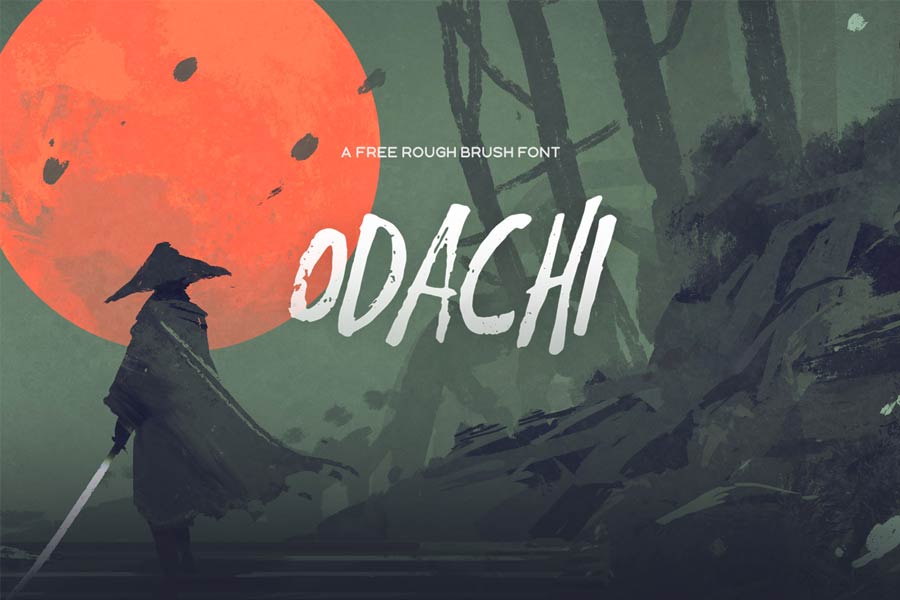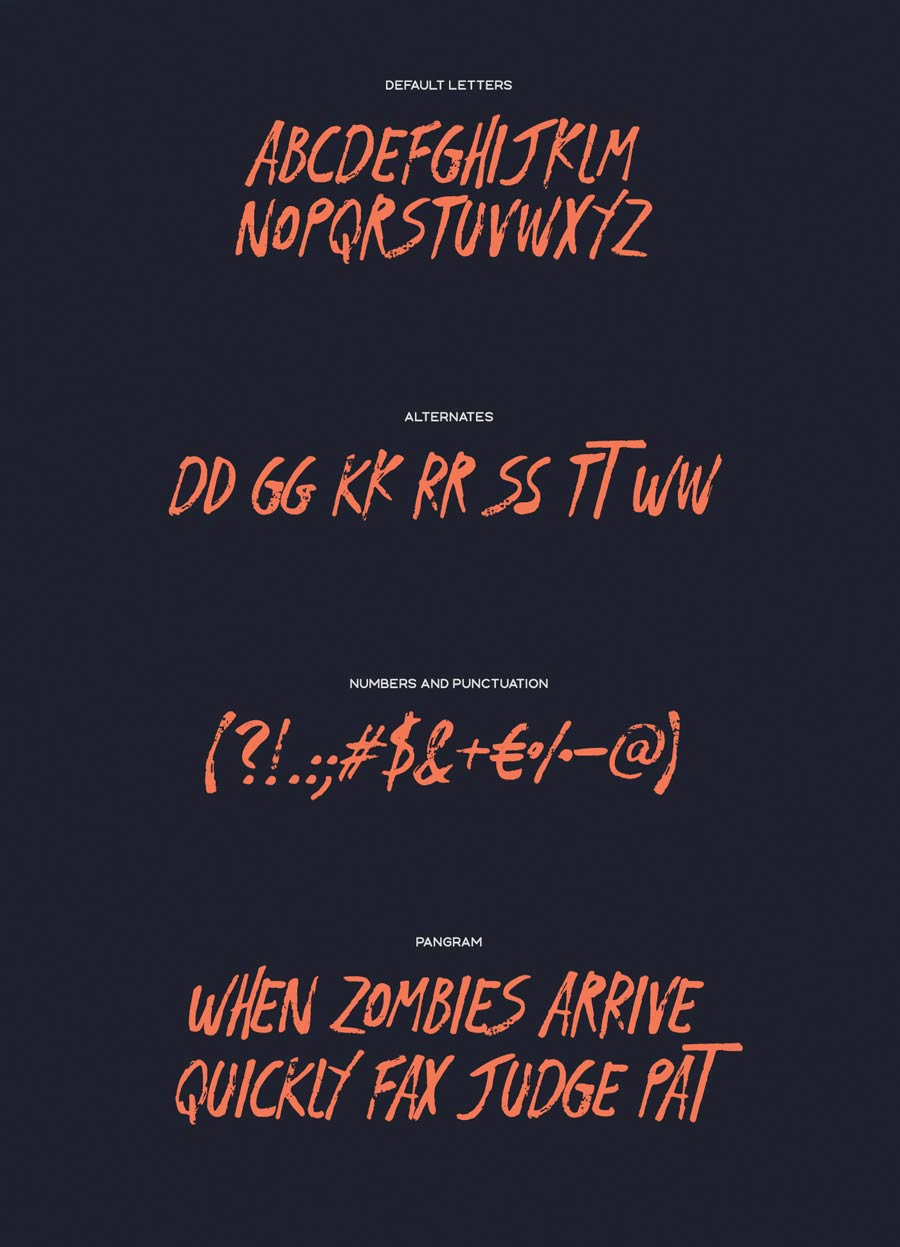
Odachi is a rough looking hand drawn brush free font. It’s an uppercase-only font and comes with the basic latin characters, plus some ligatures and punctuations. This font is suitable for web graphics, t-shirt designs and much more. It can be used on your next personal or commercial projects, completely free of charge.
- Designer: Mehmet Reha Tugcu
- Category: Calligraphy/Brush, Web Font